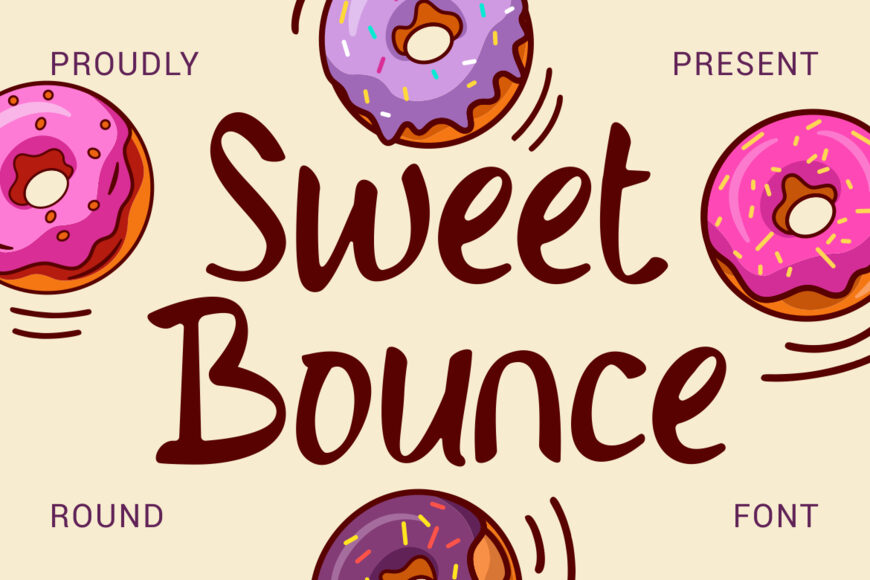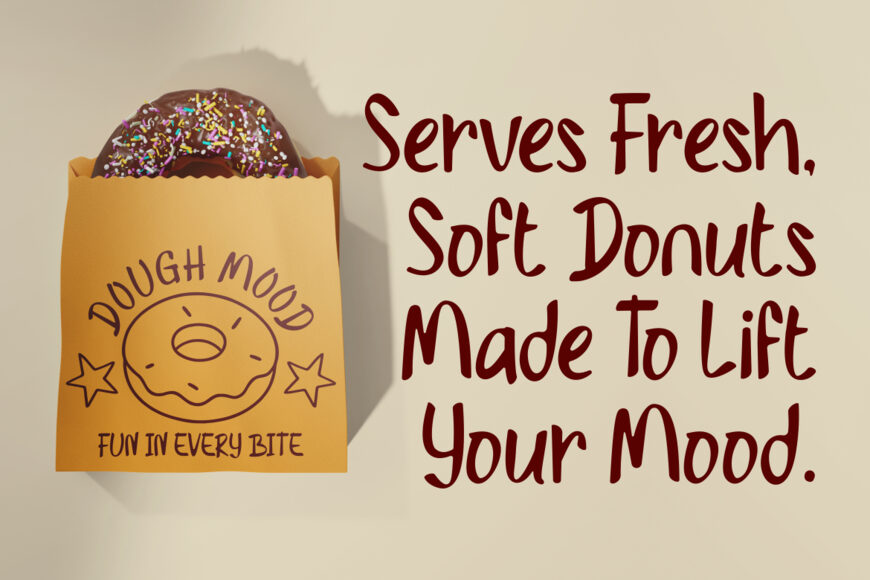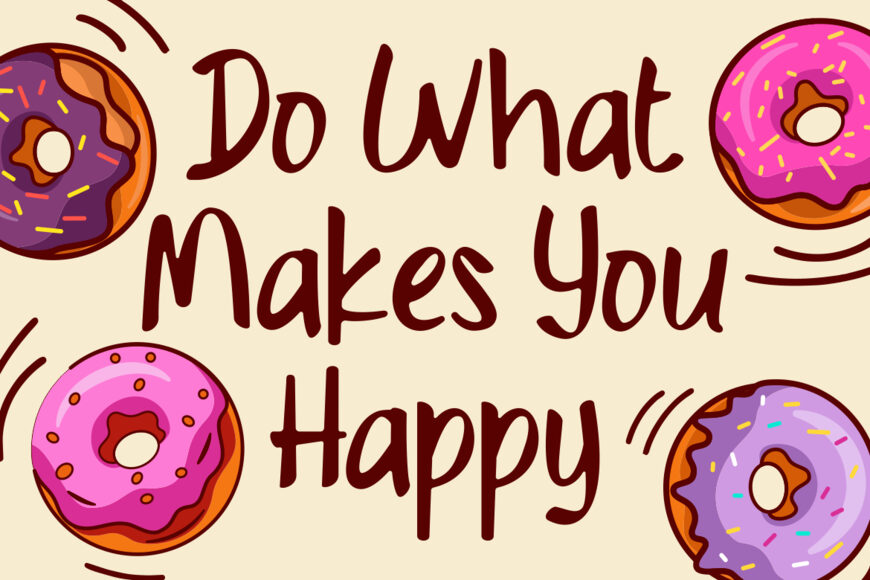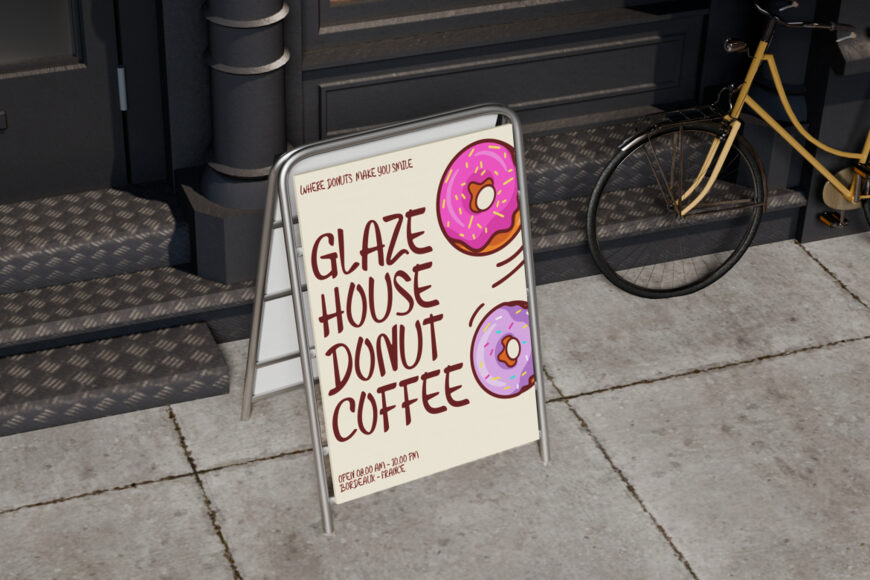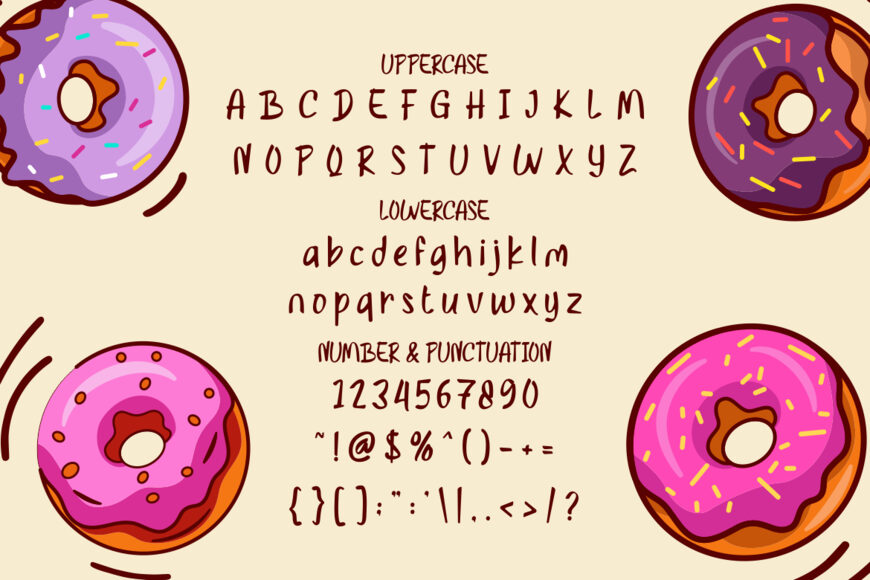
Sweet Bounce Font combines soft, handwritten lettering with rounded ends and friendly proportions. Its moderately bold strokes flow through smooth curves, creating a warm and welcoming feel. Slight irregularities give each character the relaxed rhythm of casual marker writing, while the lively baseline adds a subtle bouncing effect.
Tall, narrow ascenders and gently curved descenders enhance its playful appearance. Sweet Bounce Round Font pairs cheerful handwriting with a polished rounded display style, making it expressive, modern, and memorable for logos, wordmarks, branding, and standout titles.